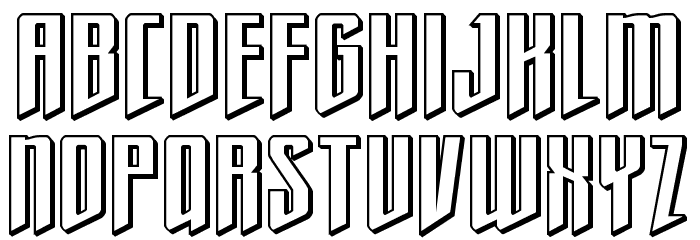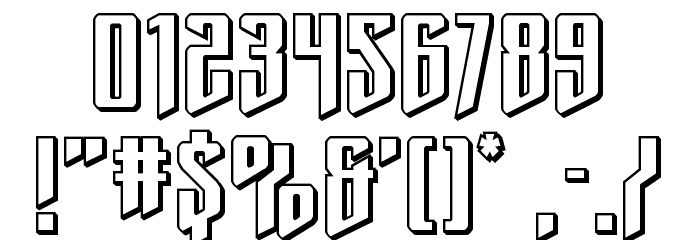
Justice Fighters 3D Font
This font features a bold, three-dimensional design with a strong, angular presence. The letters are outlined with a thick black border, giving them a shadowed effect that enhances their 3D appearance. The uppercase and lowercase letters maintain a consistent style, with sharp edges and a geometric structure. The numbers and special characters follow the same design principles, ensuring uniformity across all glyphs. This font is highly decorative and eye-catching, making it ideal for projects that require a striking visual impact.
A bold, 3D decorative font with angular, geometric letters and strong outlines.
- Proposed Projects: Ideal for video game titles, movie posters, comic book covers, and any project needing a dynamic, impactful typeface.